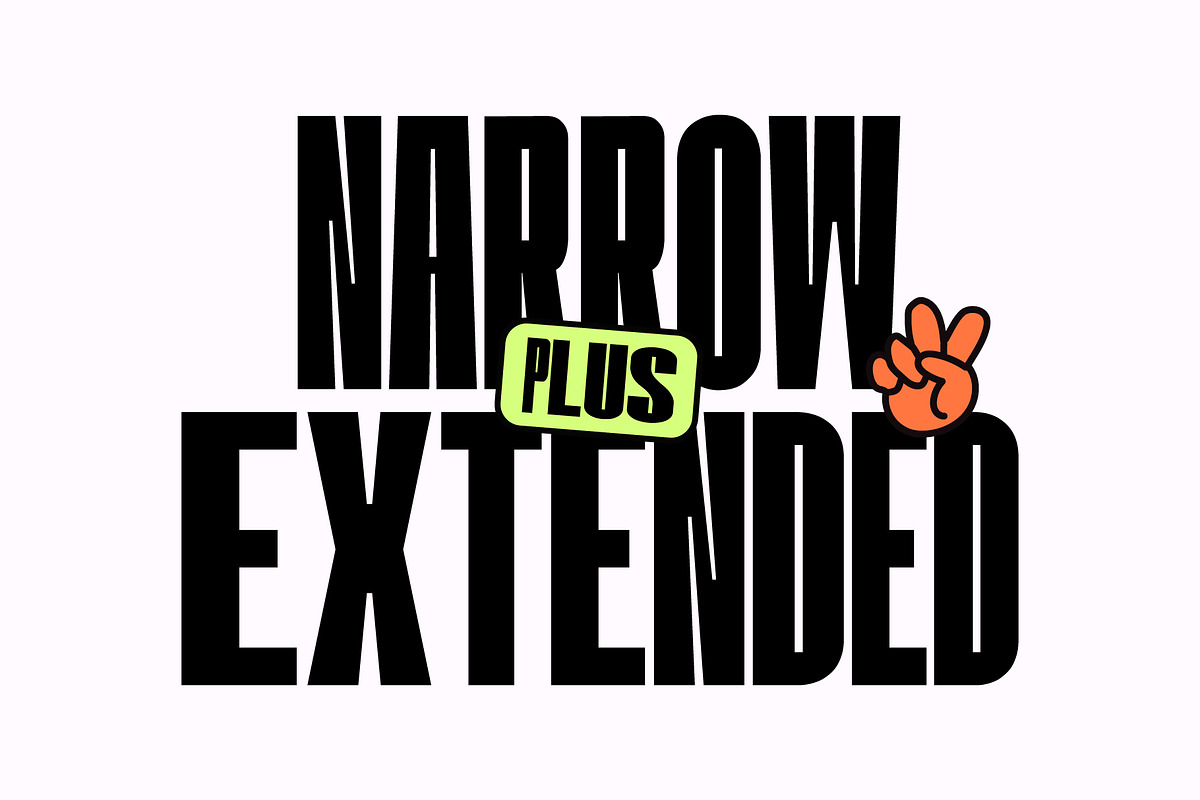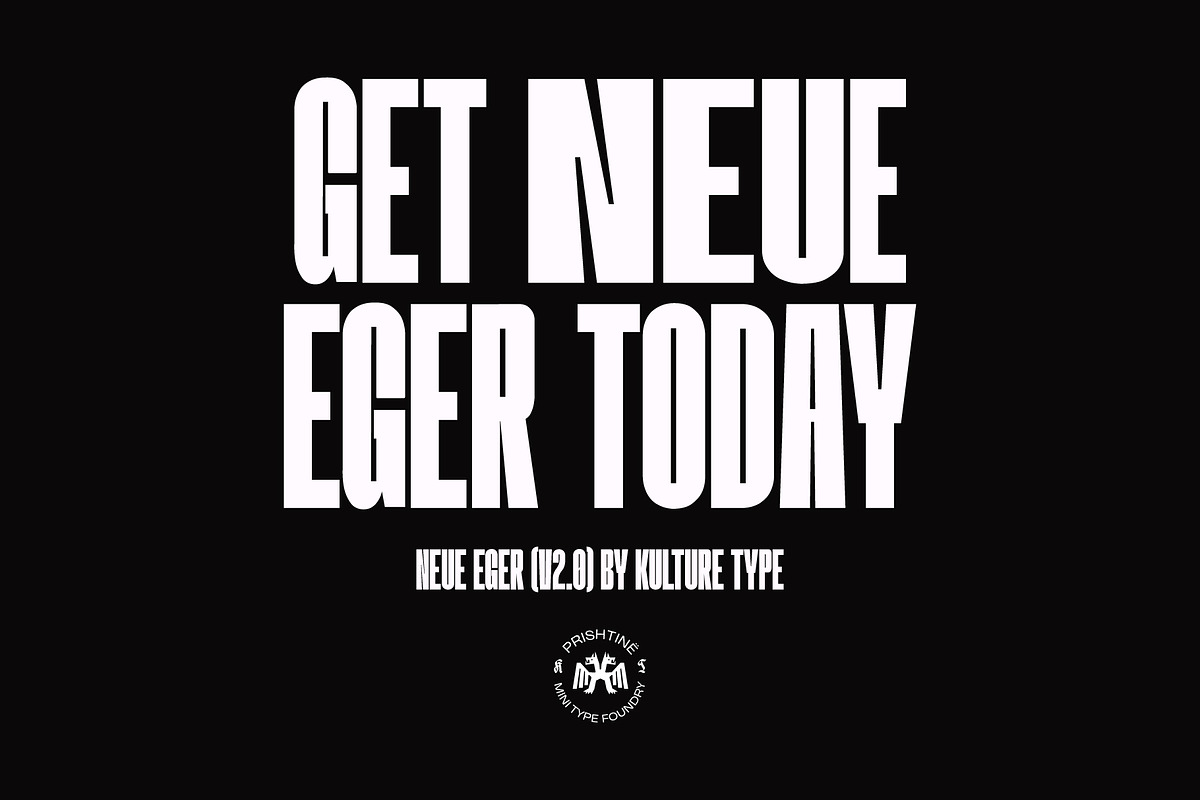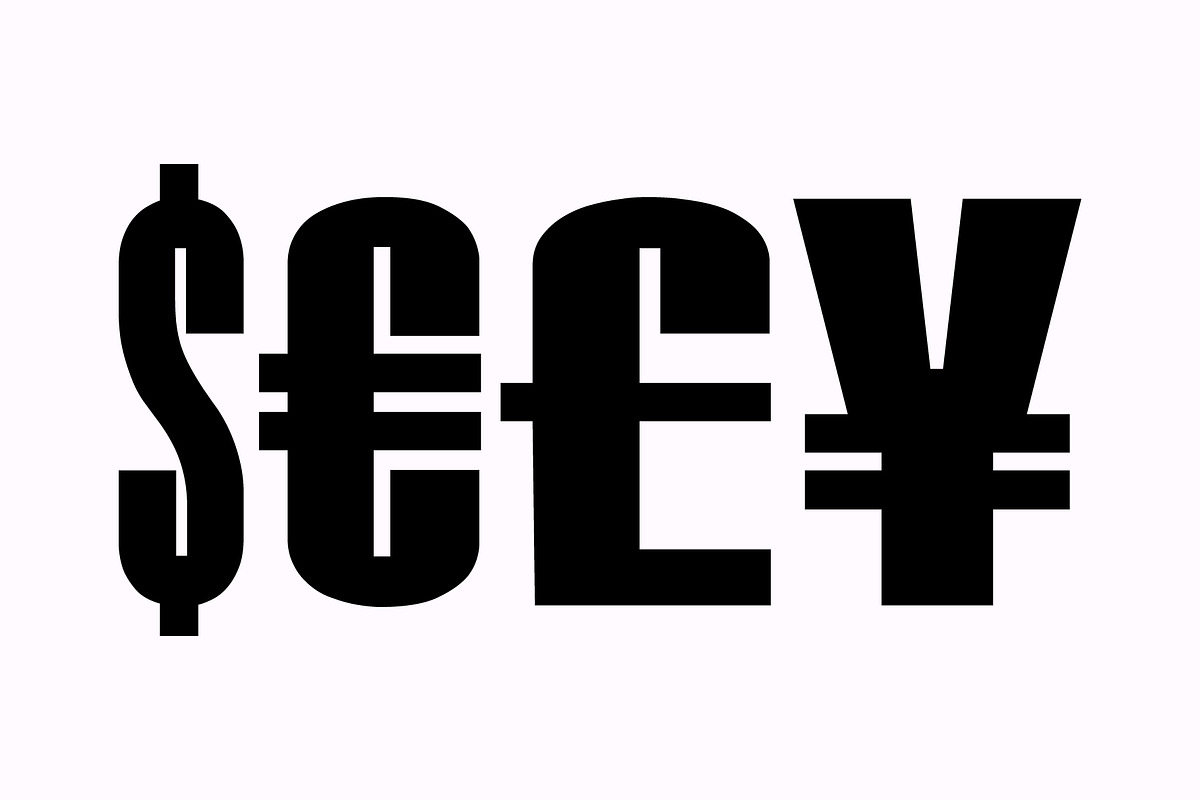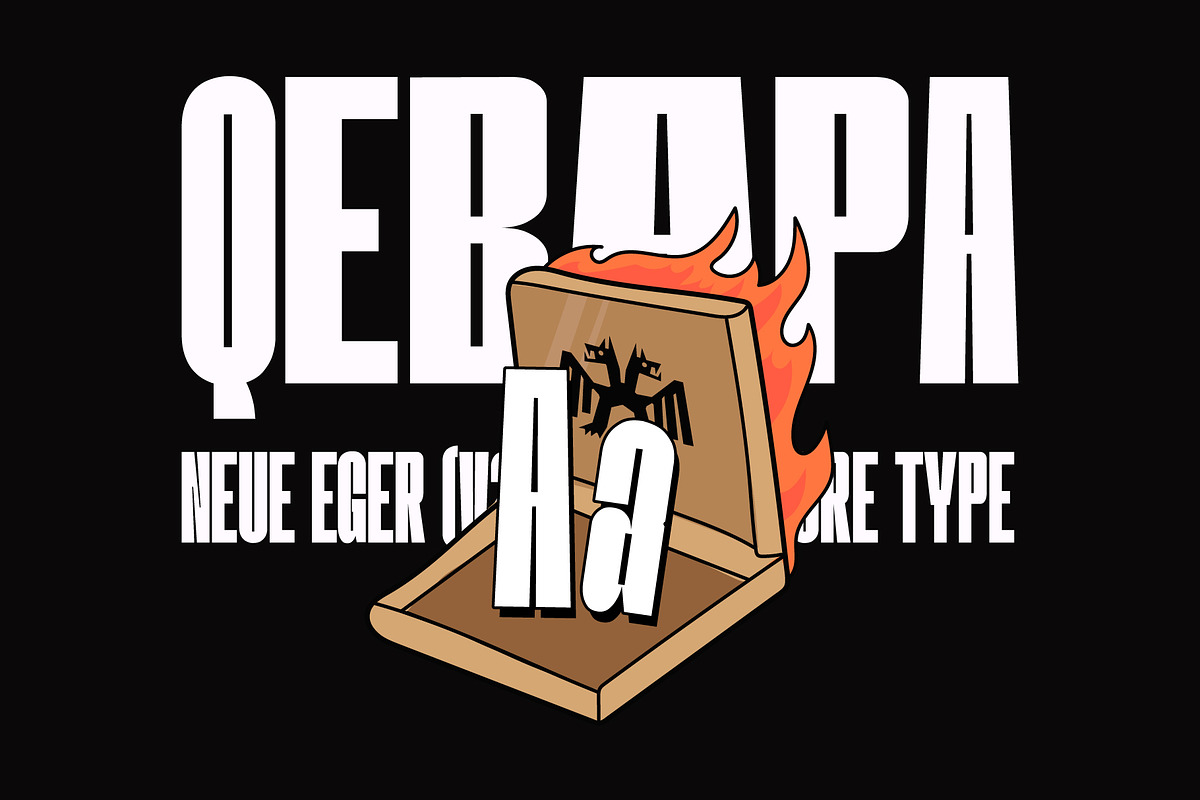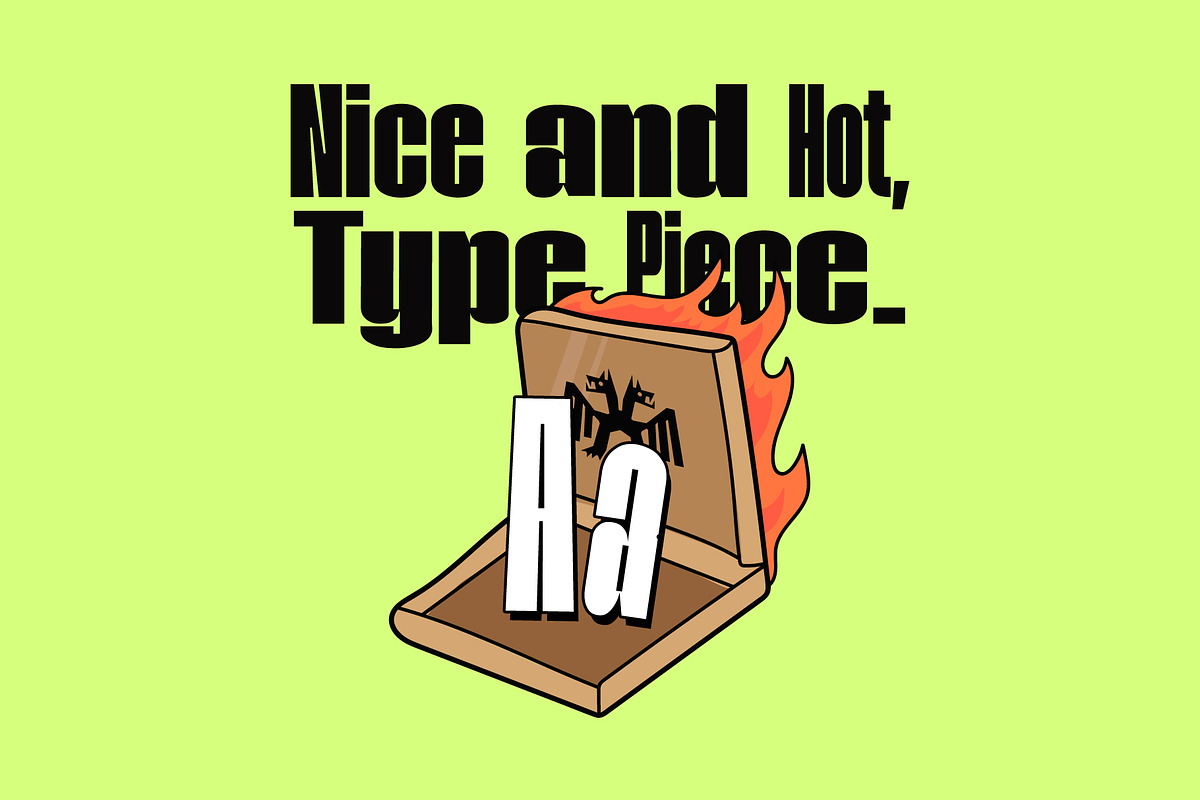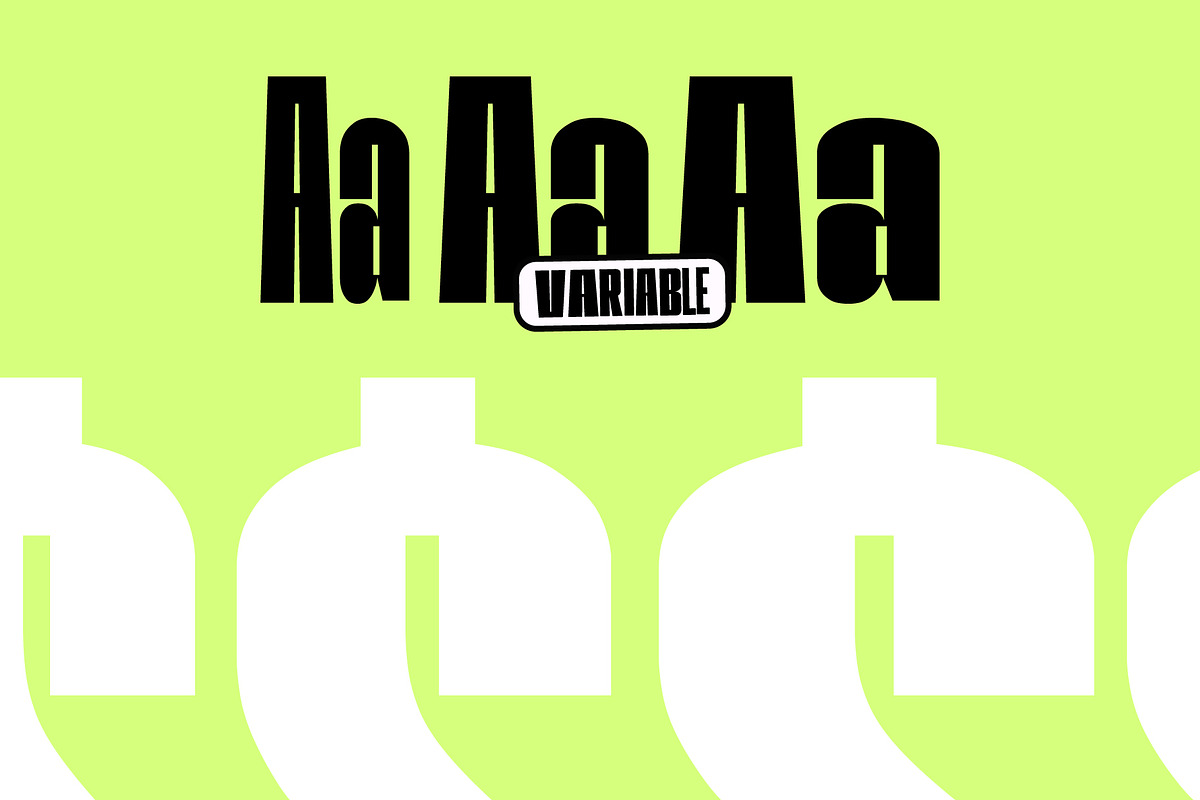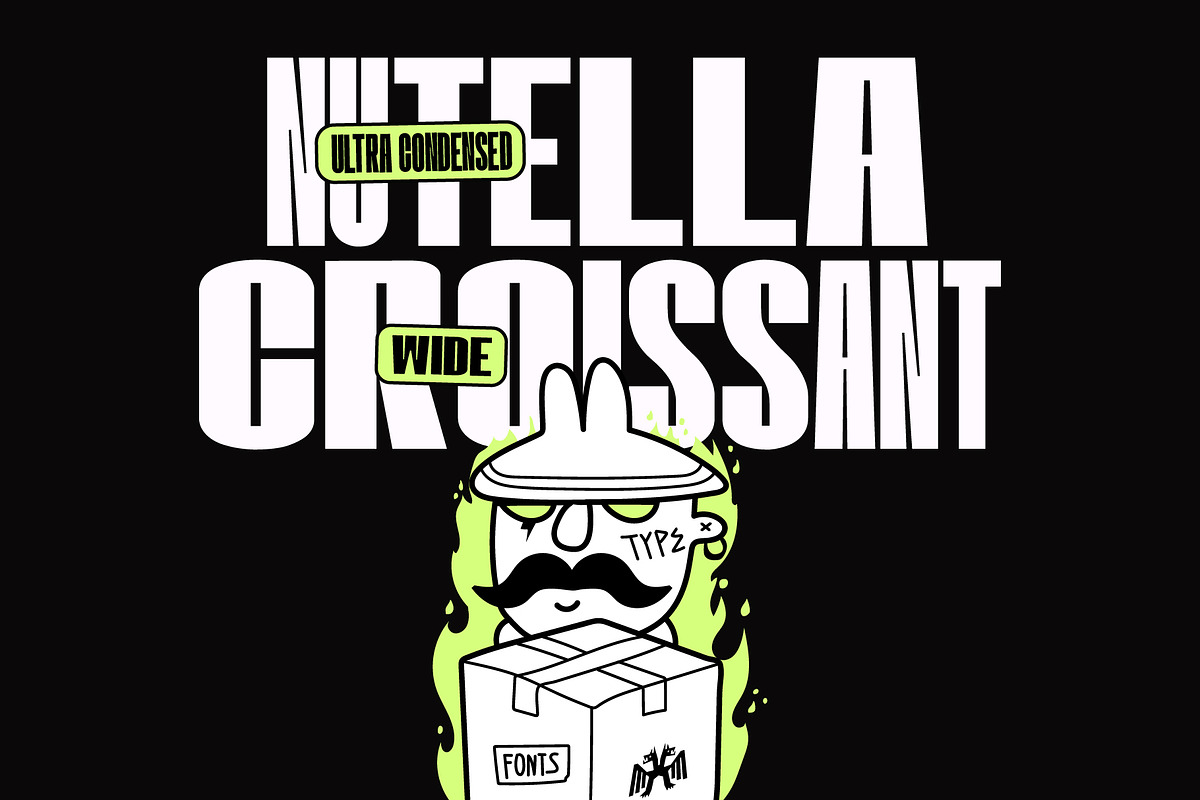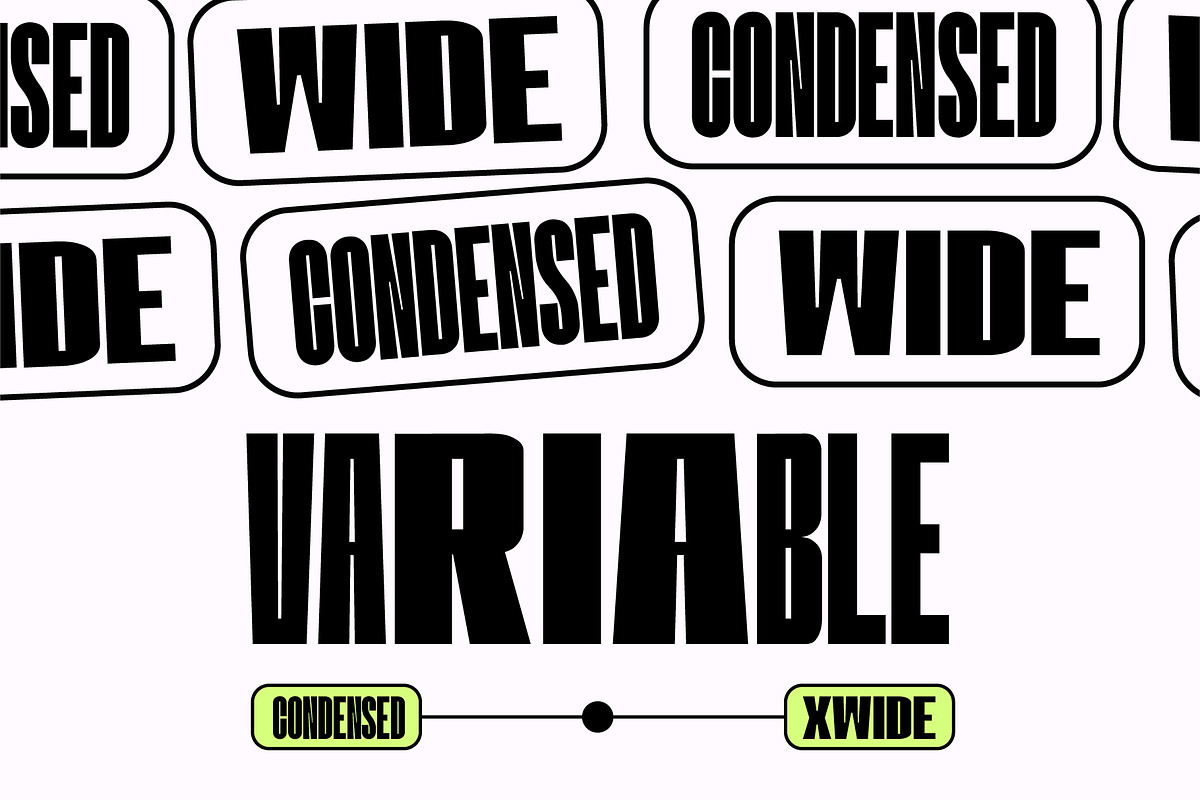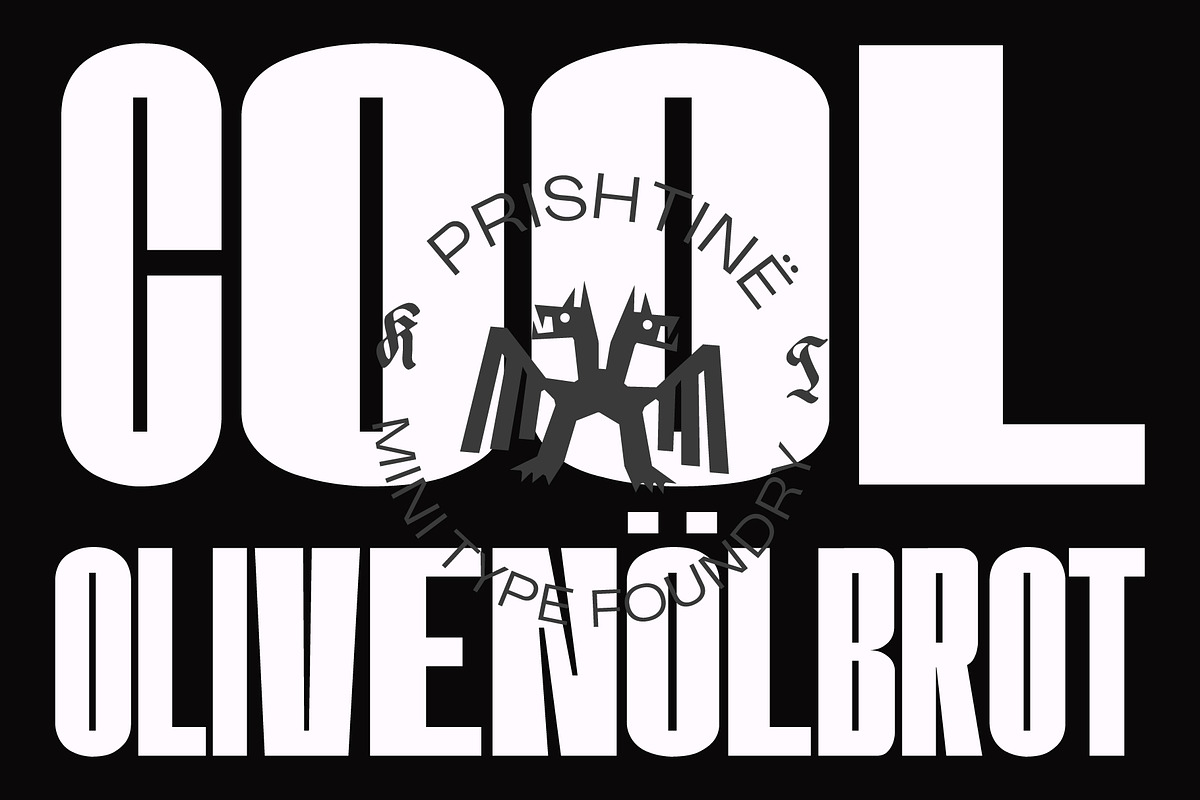
Neue Eger - Display Type
Introducing Neue Eger (V2.0) - Our latest release!
The first time we are introducing a variable type to our retail releases, we've decided that Eger was the best type to tweak and give some more freedom to it. Originally inspired by Brutalist Architecture, thus the name Eger - the feel still remains the same.
Bold, Tough, Tight, Wide. All-In-One? Could say that.
Eger is a narrow type that fits the display genre the best. It features deep inktraps and is quite curvy to say the least.
The type is available in 2 widths (Ultra Condensed & Wide) and features a Variable format where you can experiment as much as you like.